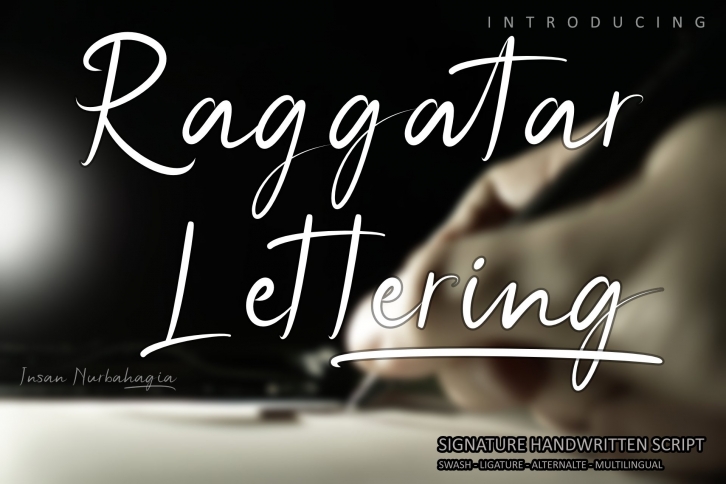
Raggatar Lettering is a trendy and unique font with an authentic style. It was designed by Coretanletter and it's a great choice for creative people who need such a font. It was released on March 11, 2021 and the file size is 14.85 MB. Raggatar Lettering will add an organic vibe to any design idea!